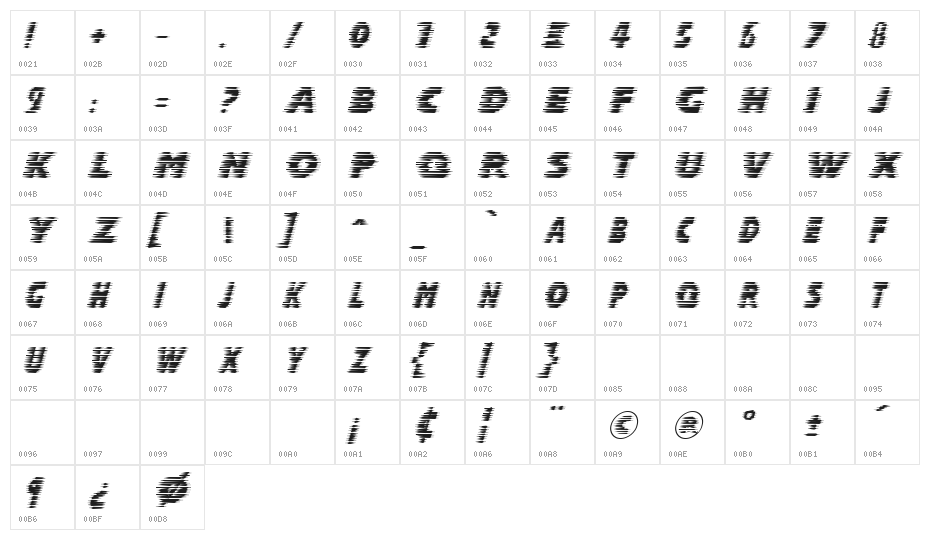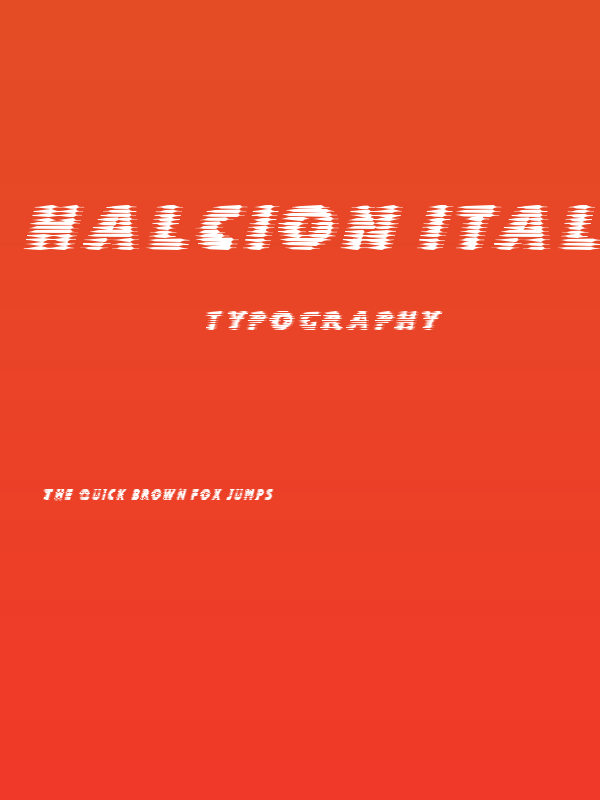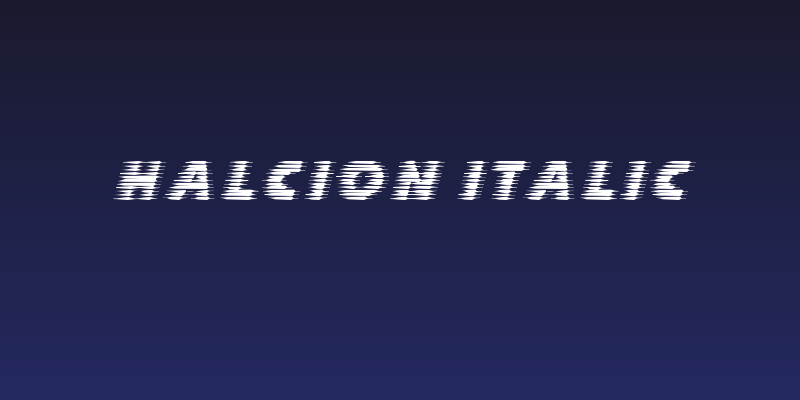
Halcion Italic Font
Halcion Italic Description
This font features a dynamic and energetic style with a distinct italic slant. The characters are composed of horizontal lines that create a sense of motion and speed, giving it a futuristic and modern appearance. The uppercase and lowercase letters maintain a consistent design, while the numbers and special characters follow the same aesthetic. The font's unique structure makes it stand out, ideal for projects that require a bold and eye-catching typeface.
| Proposed Projects | Ideal for sports branding, tech-related designs, futuristic posters, and dynamic advertising campaigns. |